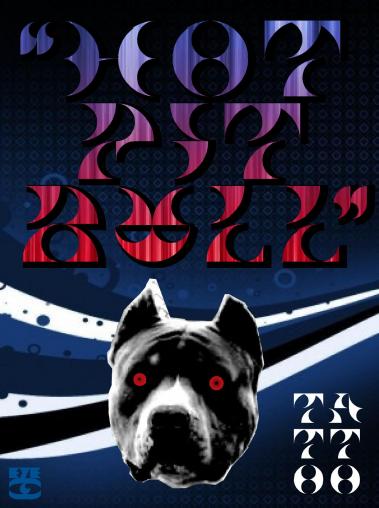
• Ztrange font, hmmm... This was for my friend Fran "Hot Pitbull", great tattoo master. He told me about a new image for his tattoo studio, and this is the beginning of my work... (In Progress).
Ztrange font, hmmm...
This was for my friend Fran "Hot Pitbull", great tattoo master. He told me about a new image for his tattoo studio, and this is the beginning of my work... (In progress).
Really has that tattoo feel to it.